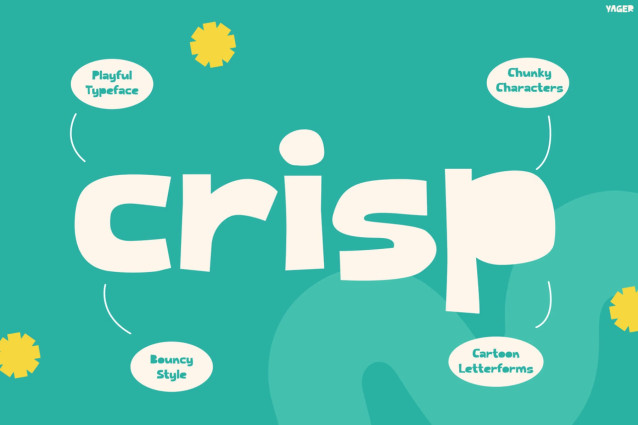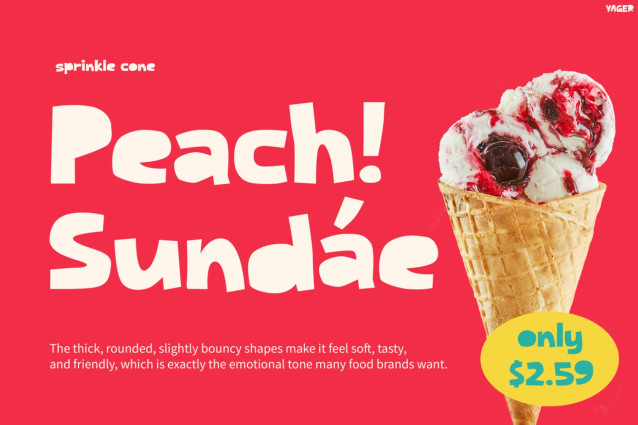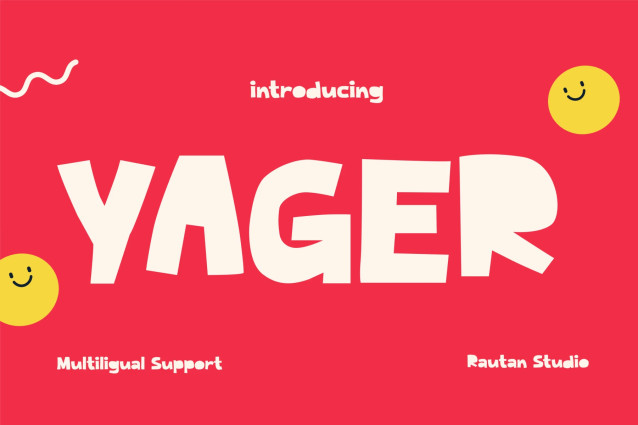
Yager Font
Yager is a fun cartoon display font with bold rounded shapes and playful curves. Perfect for kids branding, snack packaging, toy logos, posters, and cheerful designs.